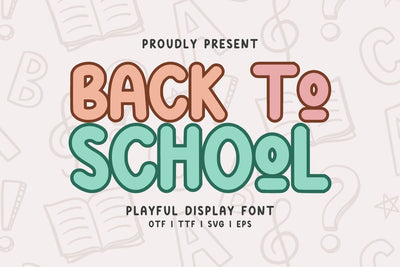
Back To School - Playful Display Font
Back To School is a fun, simple font. font inspired by fun school doodles. This font is very suitable for creative needs such as quotes, book titles, schedules, planners, journals, notes, stickers, apparel, wall art, teaching materials, and many other creative ideas including webinar thumbnails, education on social media, etc.